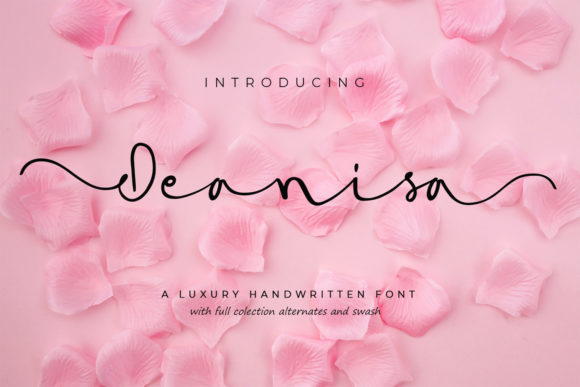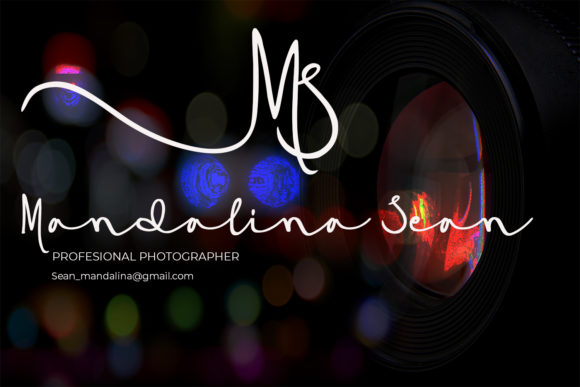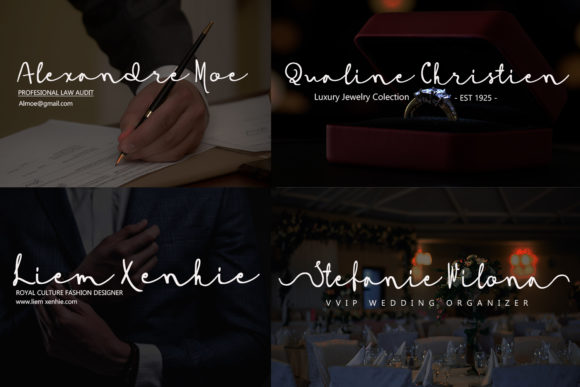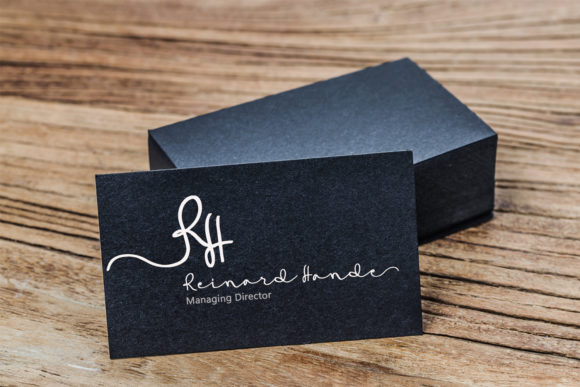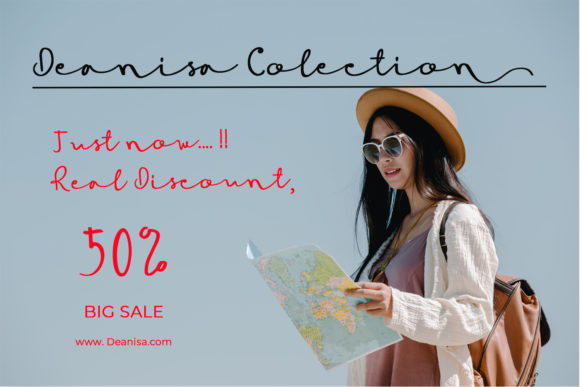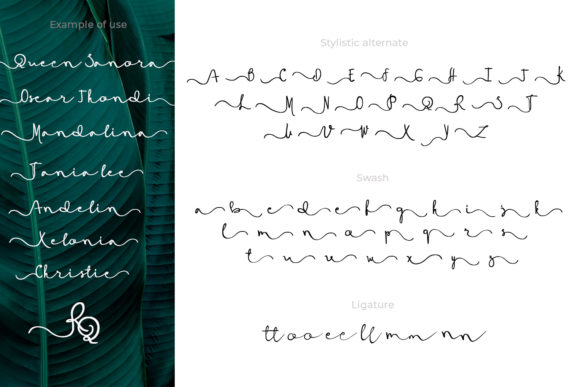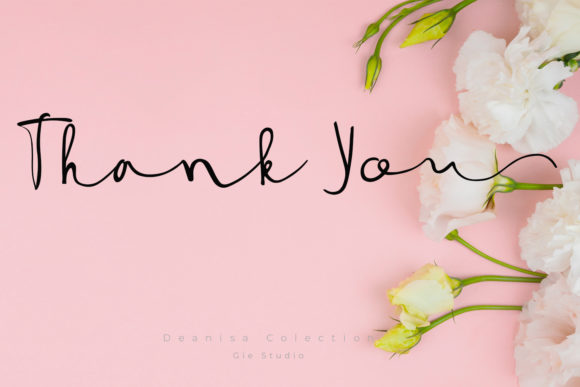
Deanisa Font
About Deanisa Font
Deanisa is a beautiful and charming handwritten font. Get inspired by its authentic feel and use it to create gorgeous wedding invitations, beautiful stationary art, eye-catching social media posts, and cute greeting cards.